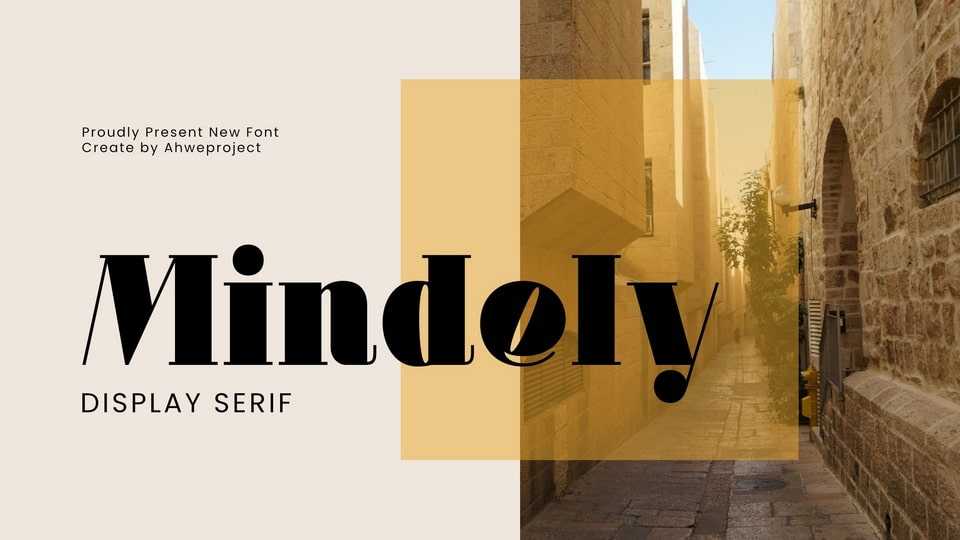
Download Mindely font, an elegant serif typeface with a display modern style. It is a display font with moderate contrast that is perfect for branding projects, logo, wedding designs.